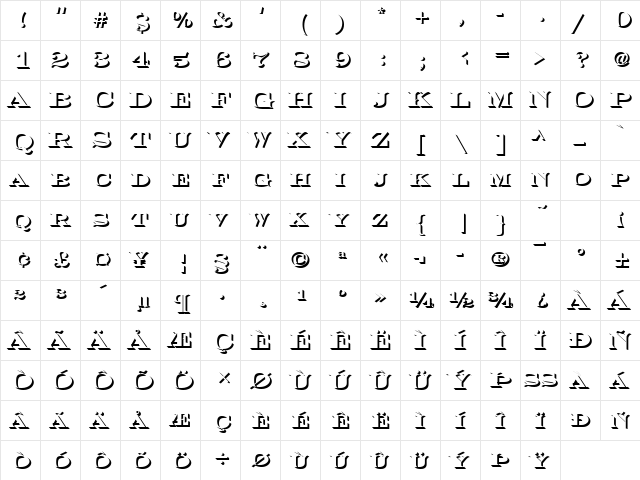
EngraversOnlShaDBol Regular Font Preview
EngraversOnlShaDBol Regular
Design Context for EngraversOnlShaDBol Typeface
EngraversOnlShaDBol offers clean, dependable letterforms without strong stylistic allegiance, making it a practical choice for designers who need flexibility.